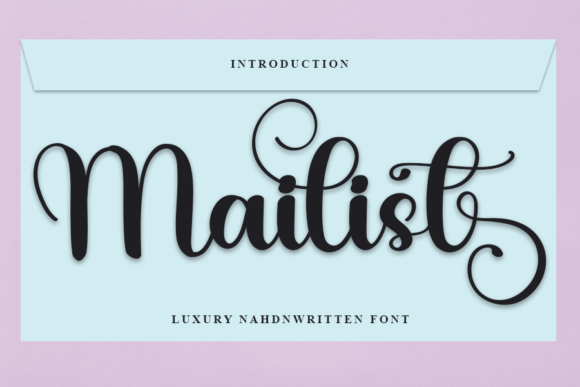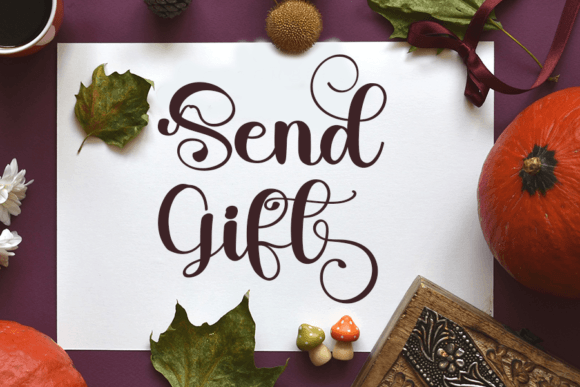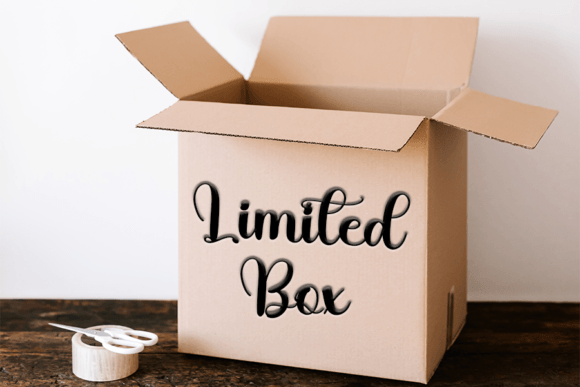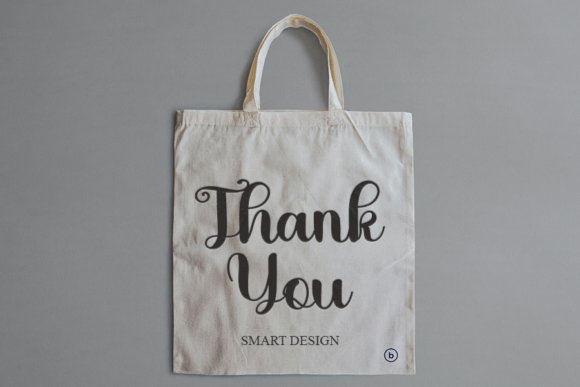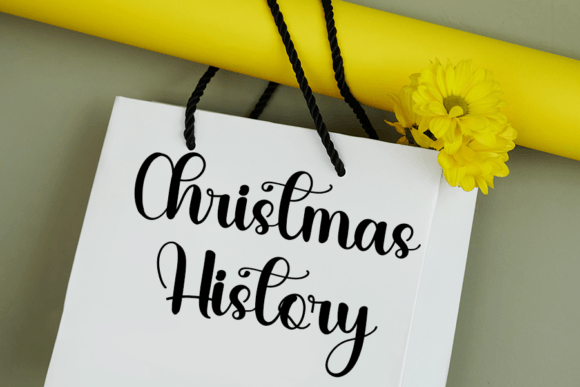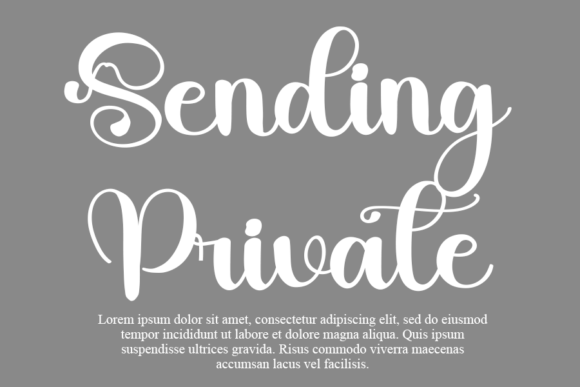
Mailist Font
**Mailist Handwritten Font: A Timelessly Elegant Choice for Your Designs**
Discover the beauty of Mailist, a trendy handwritten font designed to infuse your designs with a contemporary yet timeless elegance. This exquisite typeface takes inspiration from classic calligraphy, offering an impeccable form and a sophisticated atmosphere. Explore the captivating features that make Mailist the perfect choice for elevating your design projects:
1. **Timeless Classic:** Mailist captures the enduring appeal of classic calligraphy, making it a versatile choice for various design projects. Its timeless elegance ensures it will never go out of style.
2. **Contemporary Charm:** While rooted in tradition, Mailist also brings a contemporary flair to your designs. Its modern interpretation of calligraphy makes it suitable for a wide range of applications.
3. **Impeccable Form:** The precise and well-crafted letterforms of Mailist reflect a commitment to quality and aesthetics. Its flawless execution ensures that your designs will be polished and professional.
4. **Versatile Usage:** Mailist is a versatile font that lends itself well to a variety of design projects. Whether you’re working on branding, invitations, labels, packaging, or social media graphics, it adds an elegant touch.
5. **Elegance and Class:** Elevate your designs with the sophistication and class of Mailist. It’s an ideal choice for creating refined logos, stationery, wedding invitations, and event materials.
7. **Brand Identity:** Create a memorable brand identity with Mailist. Its calligraphic beauty ensures that your logo and branding materials stand out and leave a lasting impression.
8. **Invitations and Stationery:** Design exquisite wedding invitations, event stationery, or personalized greeting cards with Mailist. It adds a touch of elegance and sophistication to special occasions.
9. **Social Media Graphics:** Enhance your social media presence with Mailist. Use it for crafting eye-catching posts, captions, and stories that radiate a refined and contemporary charm.
10. **Packaging and Labels:** Give your product packaging and labels a touch of sophistication with Mailist. Its handwritten style adds an element of uniqueness and elegance to your brand.
Mailist empowers designers, creatives, and businesses to embrace a classic yet contemporary aesthetic in their projects. With its impeccable form, versatile usage, and timeless elegance, Mailist stands as an excellent choice for adding a touch of sophistication and class to your designs. Whether you’re working on branding, invitations, or social media content, Mailist ensures that your projects exude elegance and appeal.